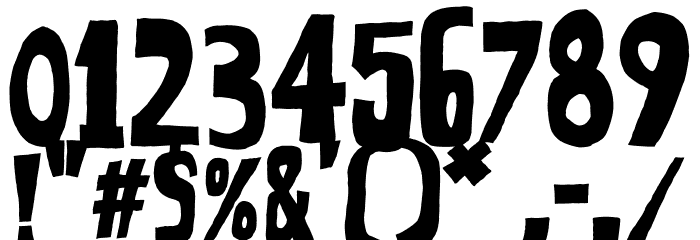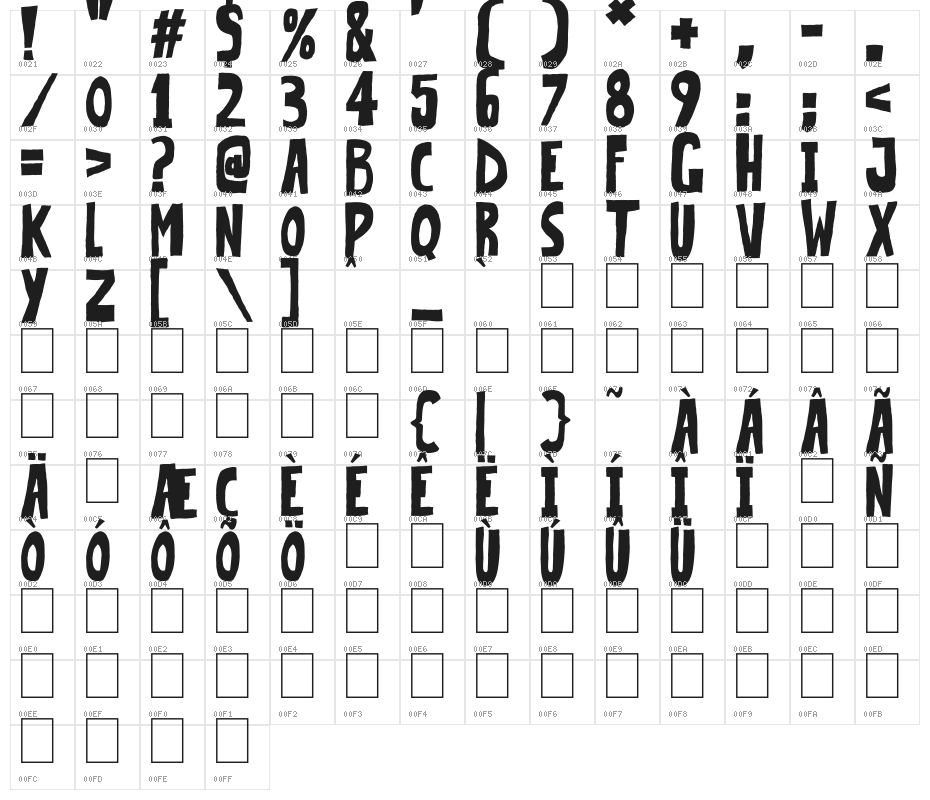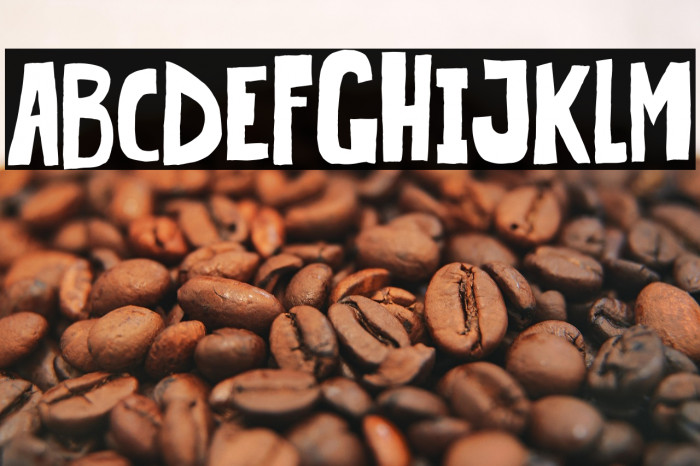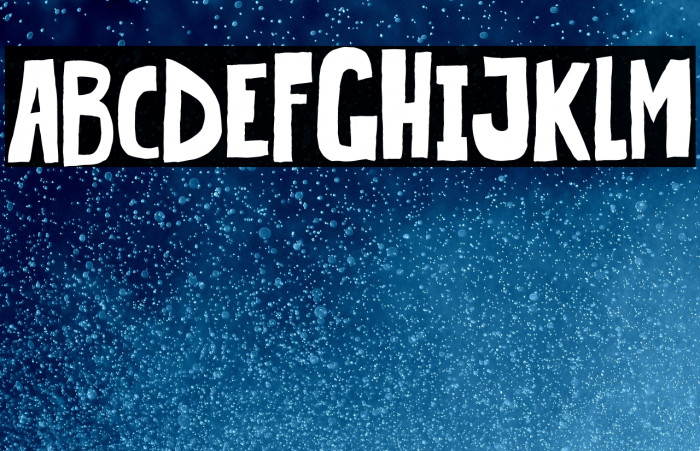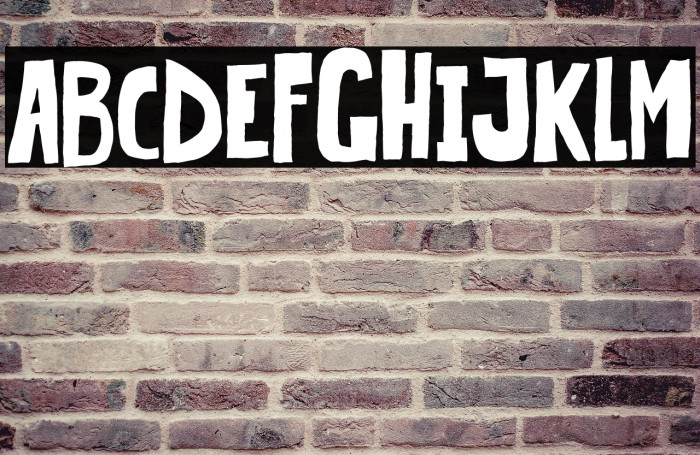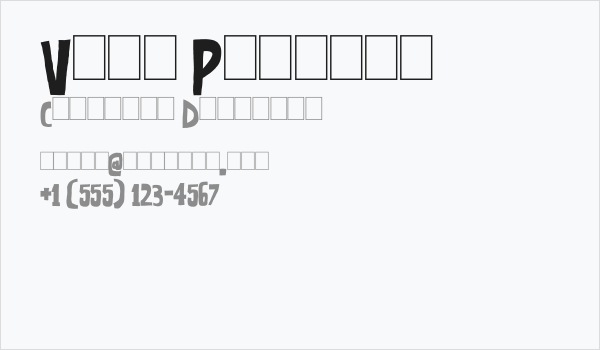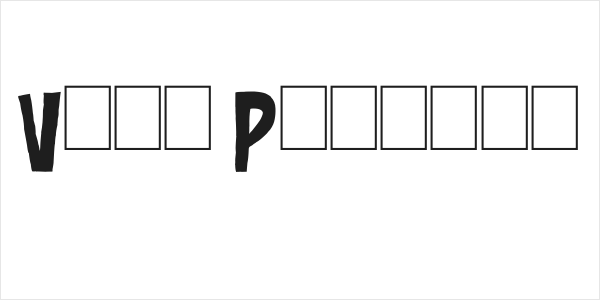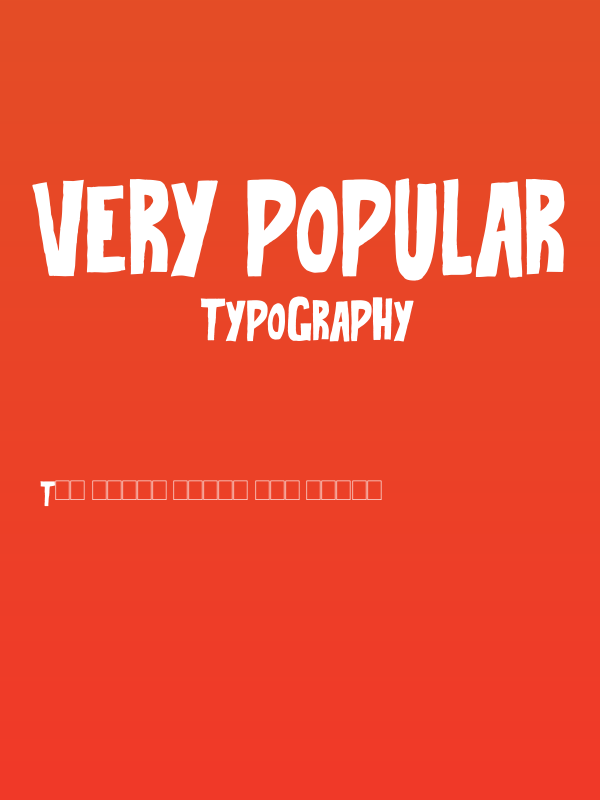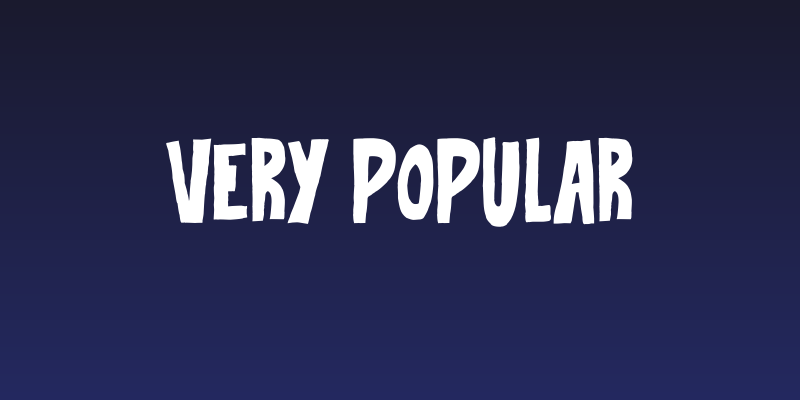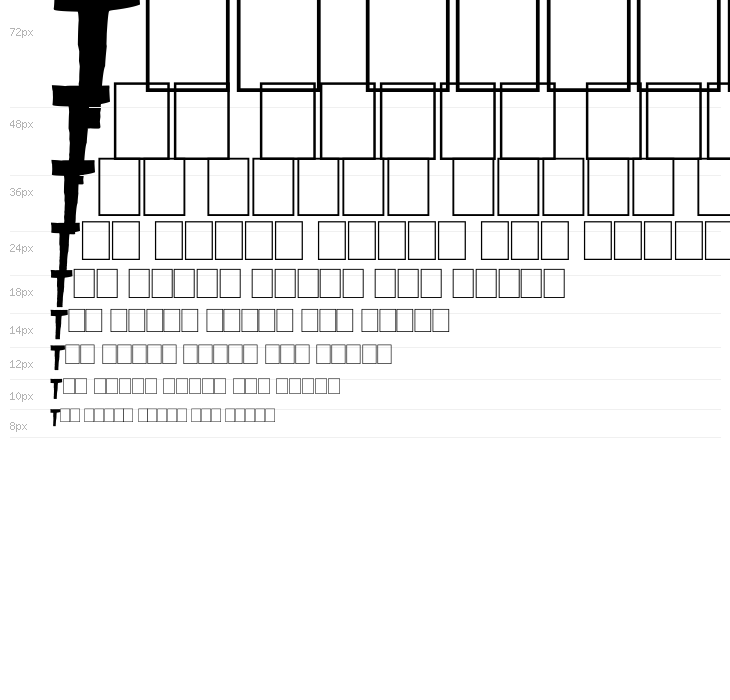
Very Popular Font
Very Popular Description
This font features a bold and expressive style with a hand-drawn appearance. The characters are irregular and slightly distorted, giving them a playful and dynamic feel. The uppercase letters are prominent and have a strong presence, while the numbers and special characters maintain the same energetic vibe. The strokes are thick and uneven, contributing to a casual and informal aesthetic. This font is ideal for projects that require a fun and eye-catching design, such as posters, flyers, and creative branding materials.
| Proposed Projects | Ideal for posters, flyers, creative branding, and any project needing a fun, eye-catching design. |